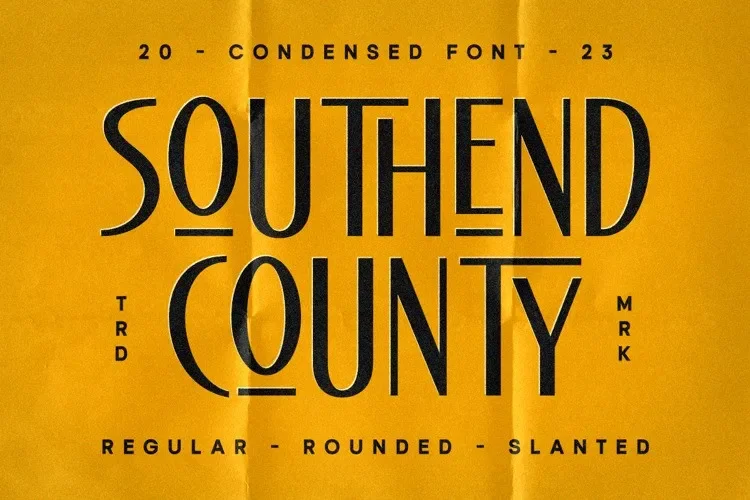
Southend County Font is a serif typeface created to solve readability and visual consistency issues in print and digital designs. Its formal letterforms help designers maintain a professional tone for logos, invitations, and editorial layouts.
The font features moderate stroke contrast, refined serifs, and slightly elongated letterforms. Open counters and clear baseline alignment enhance legibility in body text and headings. Its elegant structure supports both traditional and modern design aesthetics.